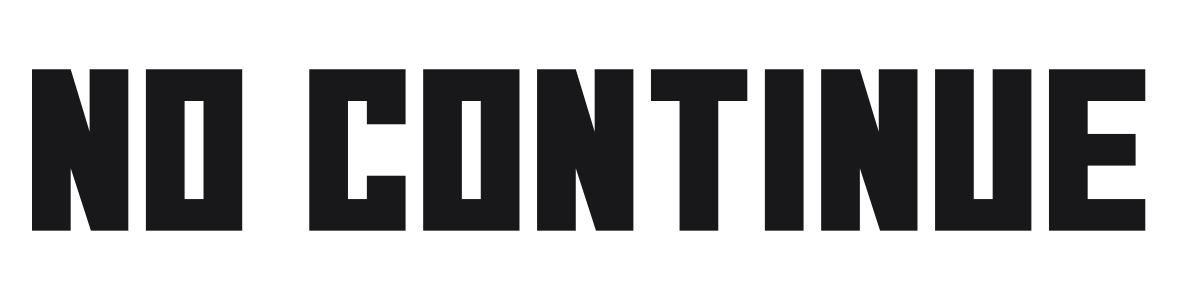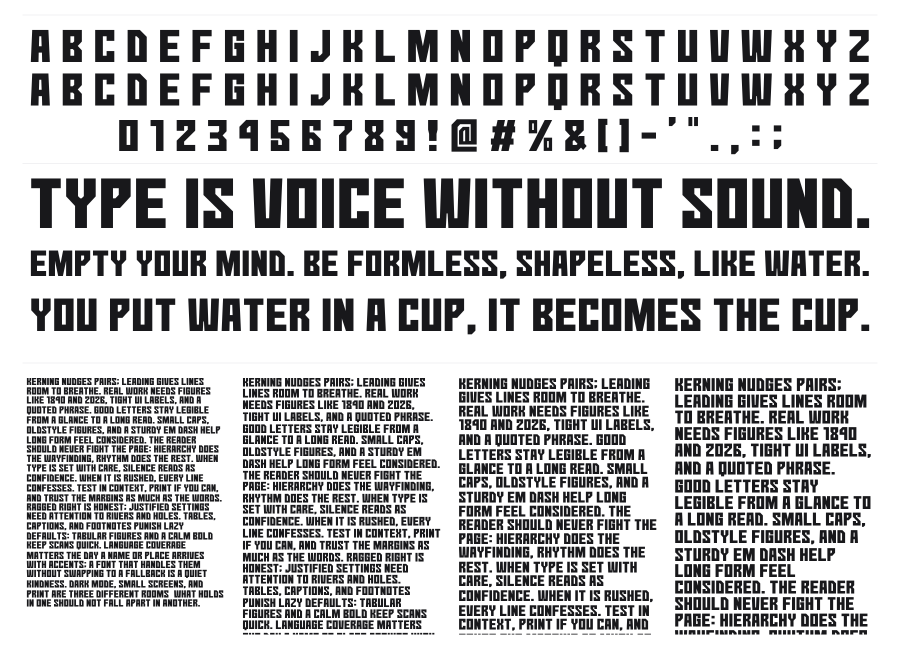
No Continue
No Continue is a heavy, ultra-condensed display face with angular, modular construction and a bold industrial edge. Notched cuts at stroke intersections and flat terminals give it a distinctive character that bridges Japanese gothic design with Western constructivist lettering. It commands attention at large sizes and carries a raw, confident energy that suits aggressive branding and editorial headlines.